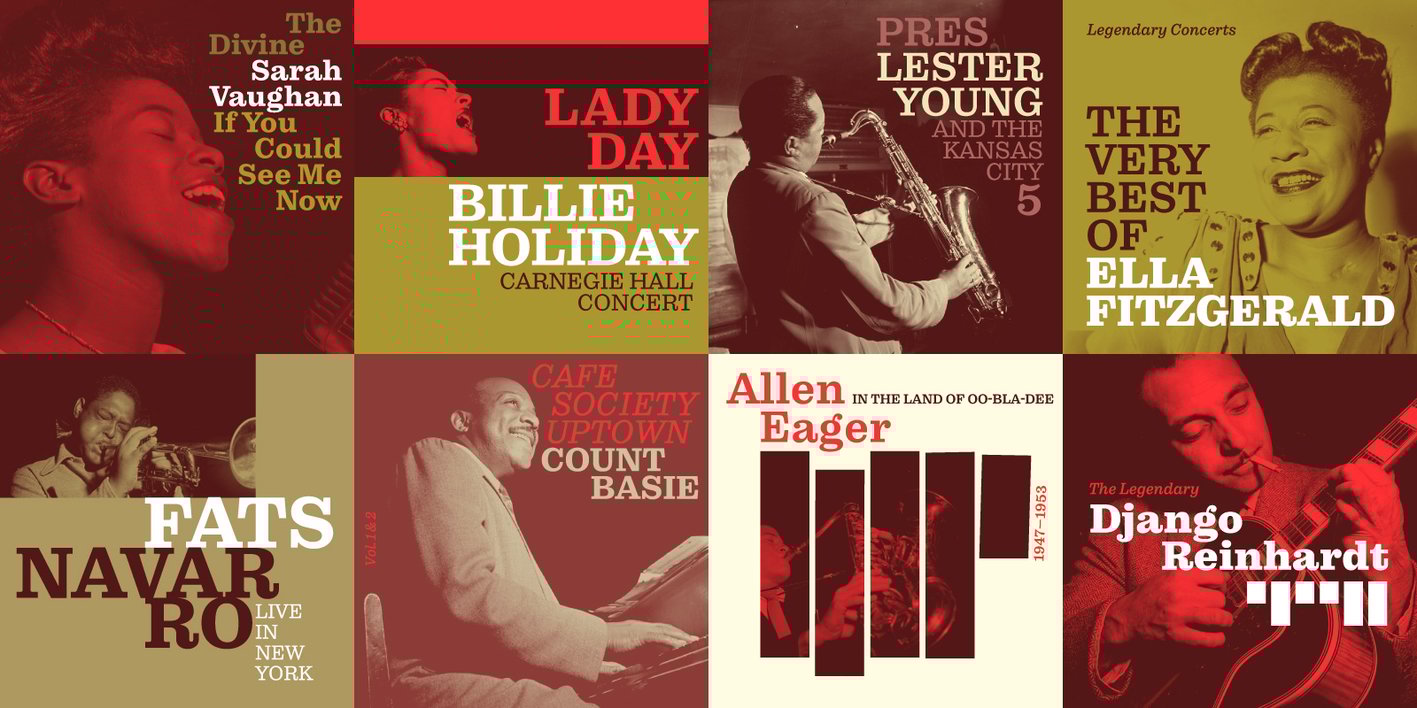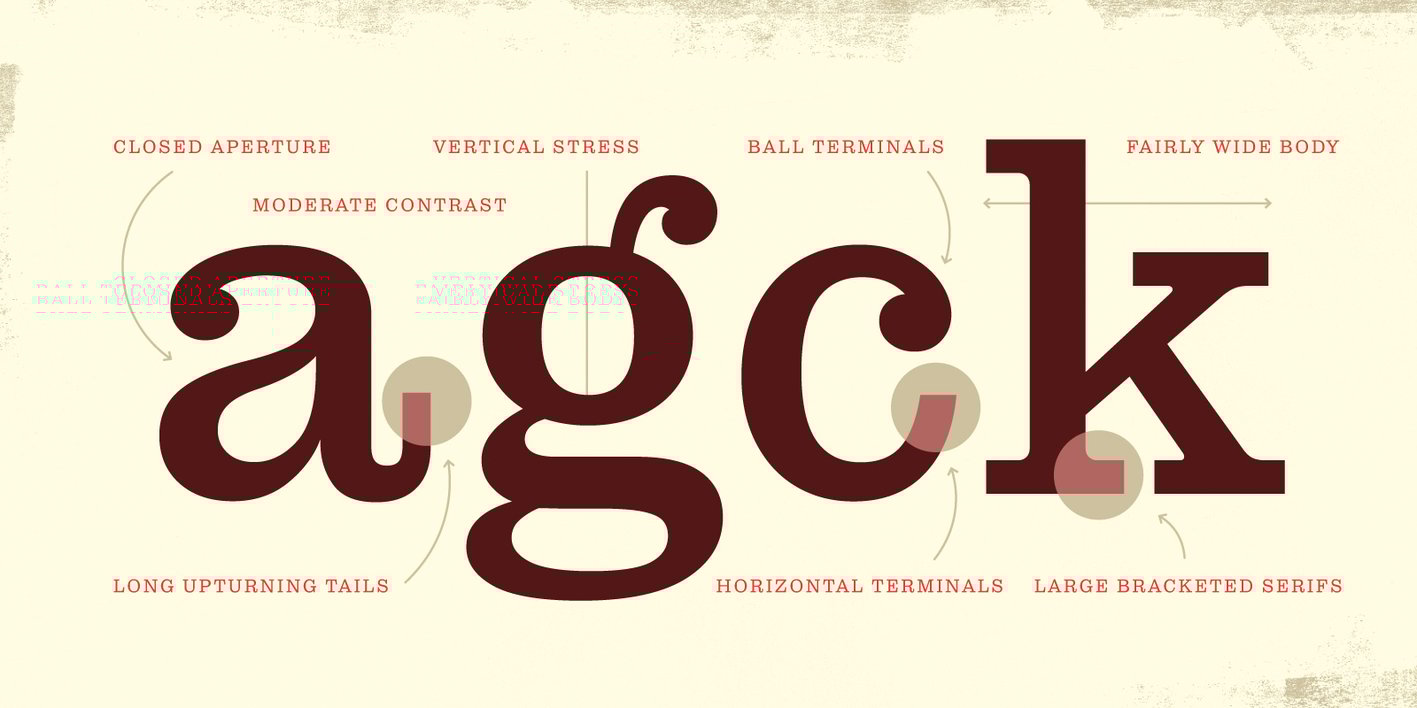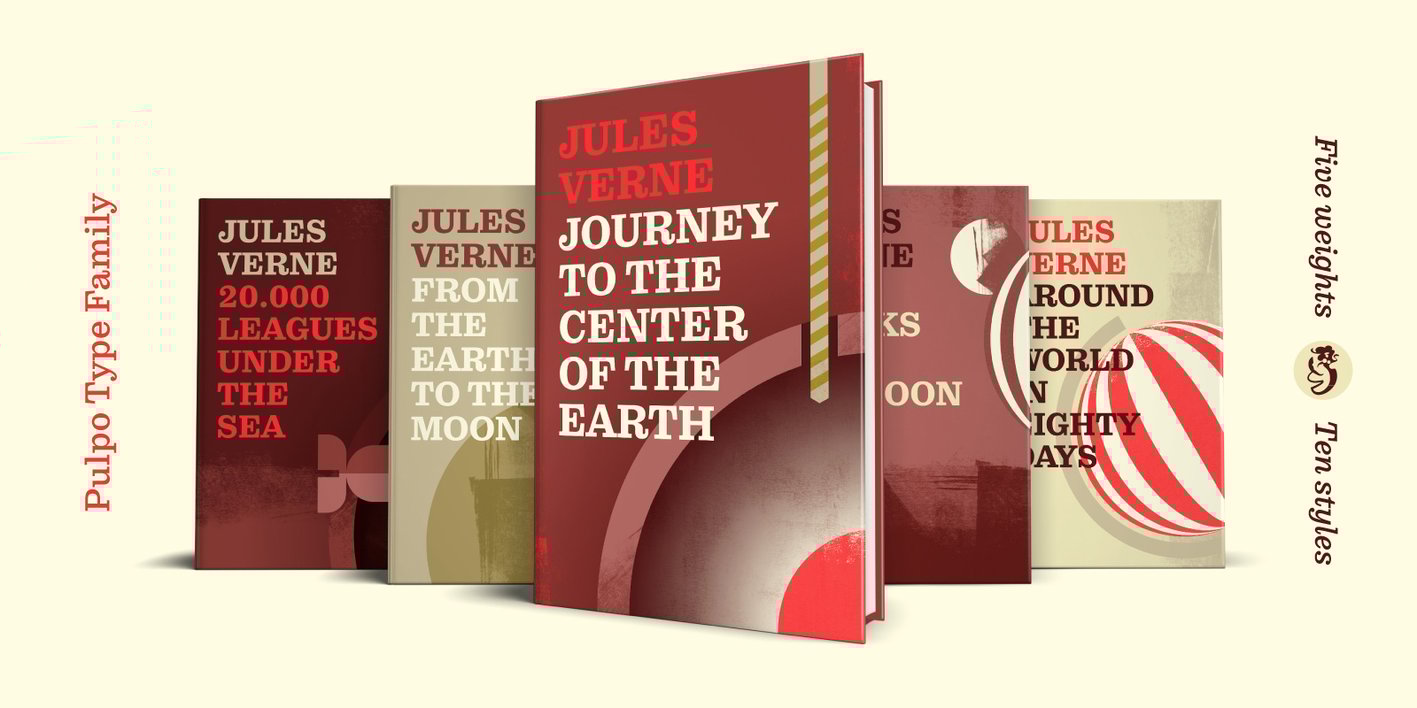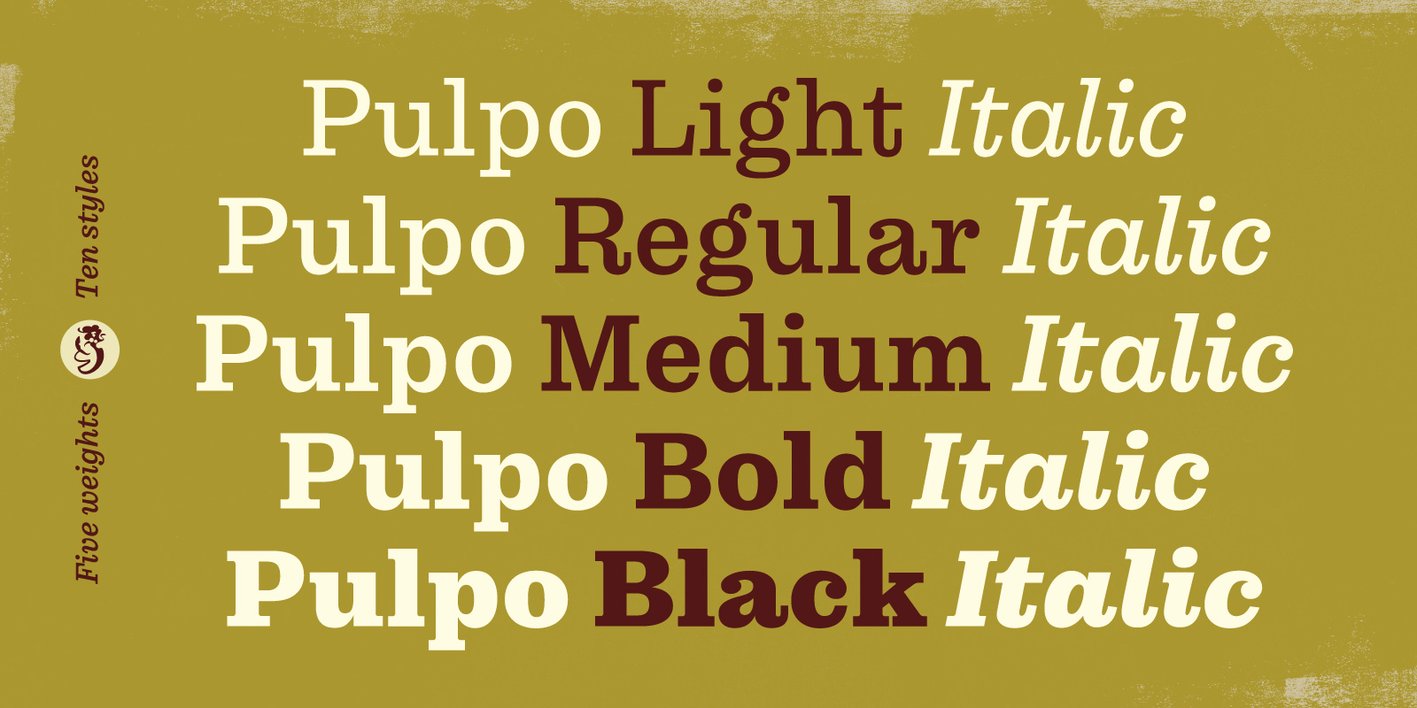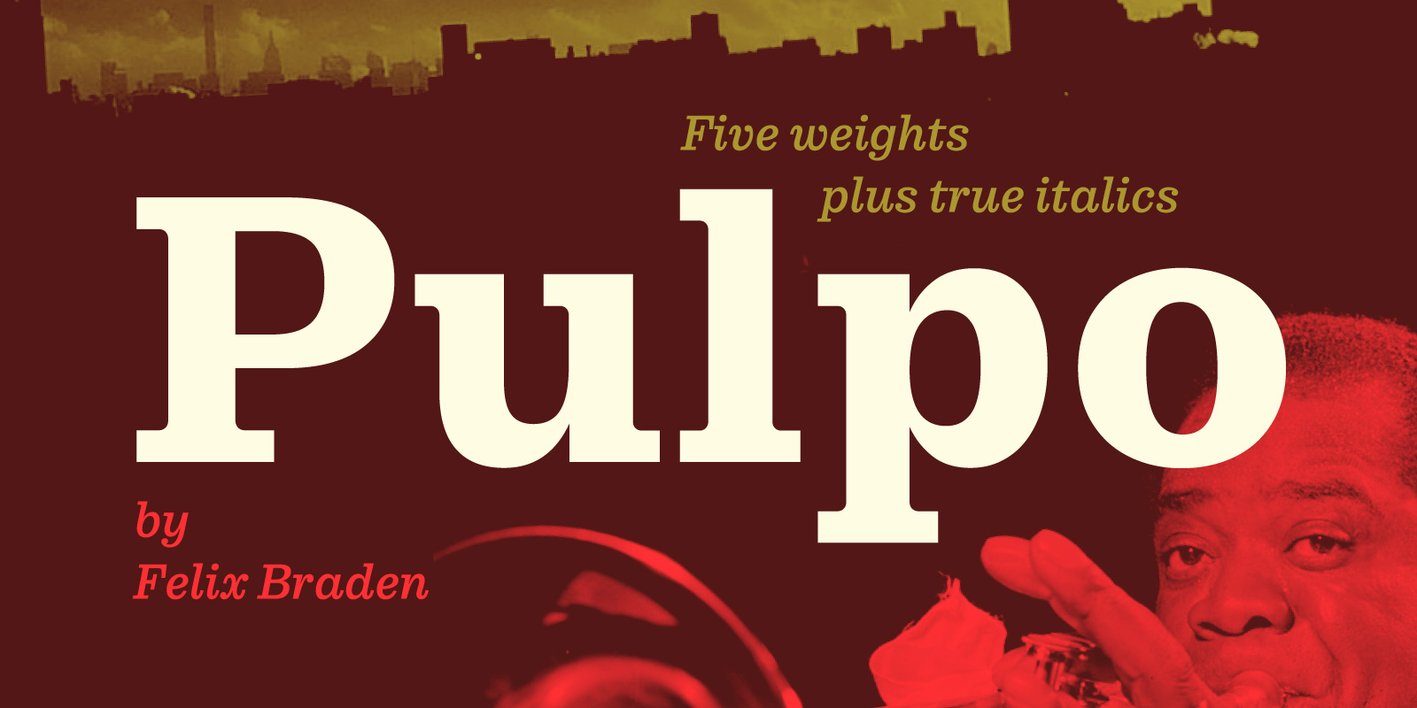
Pulpo Font
A friendly and comfortable typeface inspired by Century Schoolbook and Clarendon. Despite the strength and sturdiness of the design, each letter shape carries warmth and an echo of the human hand, concealing some nostalgia. The family is ideally suited for editorial, advertising and packaging as well as web and app design. A massive body combined with low stroke contrast, make it very suitable on screen and for small text sizes on newsprint paper.